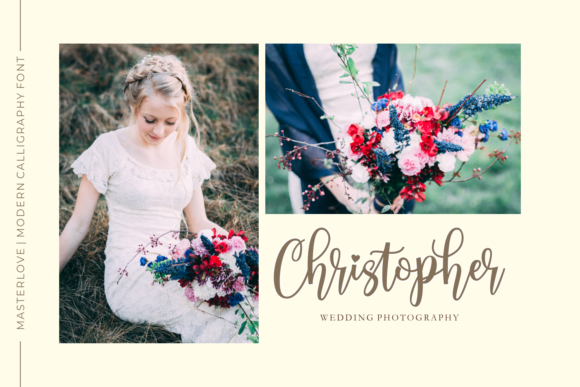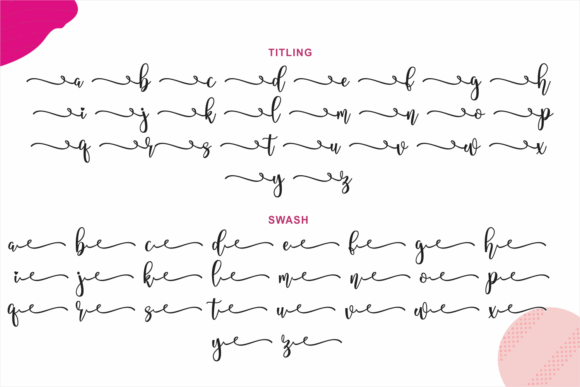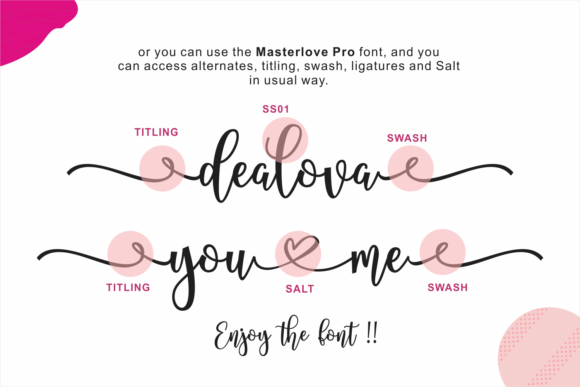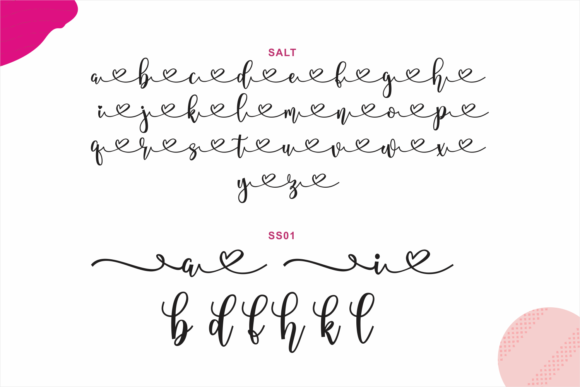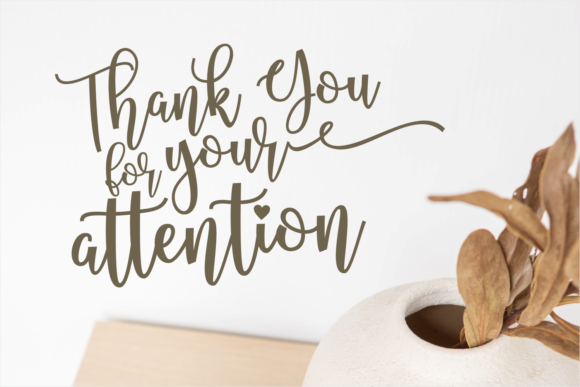
About Masterlove Font
**Masterlove** stands as a beautiful script font, boasting a combination of class, elegance, and modernity. Its versatile nature makes it a suitable choice for a broad spectrum of applications, including logos, branding, invitations, stationery, wedding designs, social media posts, and any design in need of a sophisticated handwritten touch.
The classiness of Masterlove is evident in its design, where each character is meticulously crafted to exude a sense of refinement. The font brings an air of sophistication to the table, making it well-suited for projects that require an elegant and upscale aesthetic. Whether applied to logos or branding materials, Masterlove adds a touch of class to the visual identity.
The elegance of Masterlove extends its influence across a wide range of design applications. From invitations to stationery and wedding designs, the font contributes to a luxurious and graceful atmosphere. Its modern look ensures that it seamlessly integrates into contemporary design concepts, providing versatility for various creative projects.
The versatility of Masterlove is a key feature, allowing it to adapt to diverse design needs. Whether used for social media posts, where a handwritten touch adds a personal and authentic feel, or for creating a cohesive wedding suite, this font proves itself as a reliable and stylish choice for designers.
The inclusion of PUA encoding in Masterlove enhances its accessibility. Designers can easily access all glyphs and swashes, simplifying the process of incorporating special characters and variations. This user-friendly feature adds a layer of convenience for designers seeking to explore the full range of expressive elements within the font.
In essence, Masterlove goes beyond being just a font; it becomes a design asset that effortlessly combines class, elegance, and modernity. Whether applied to logos, branding, invitations, stationery, wedding designs, social media posts, or any project demanding a sophisticated handwritten touch, Masterlove stands ready to elevate your designs. Embrace the versatility and accessibility of this font as it transforms your creative visions into visually stunning and refined realities.